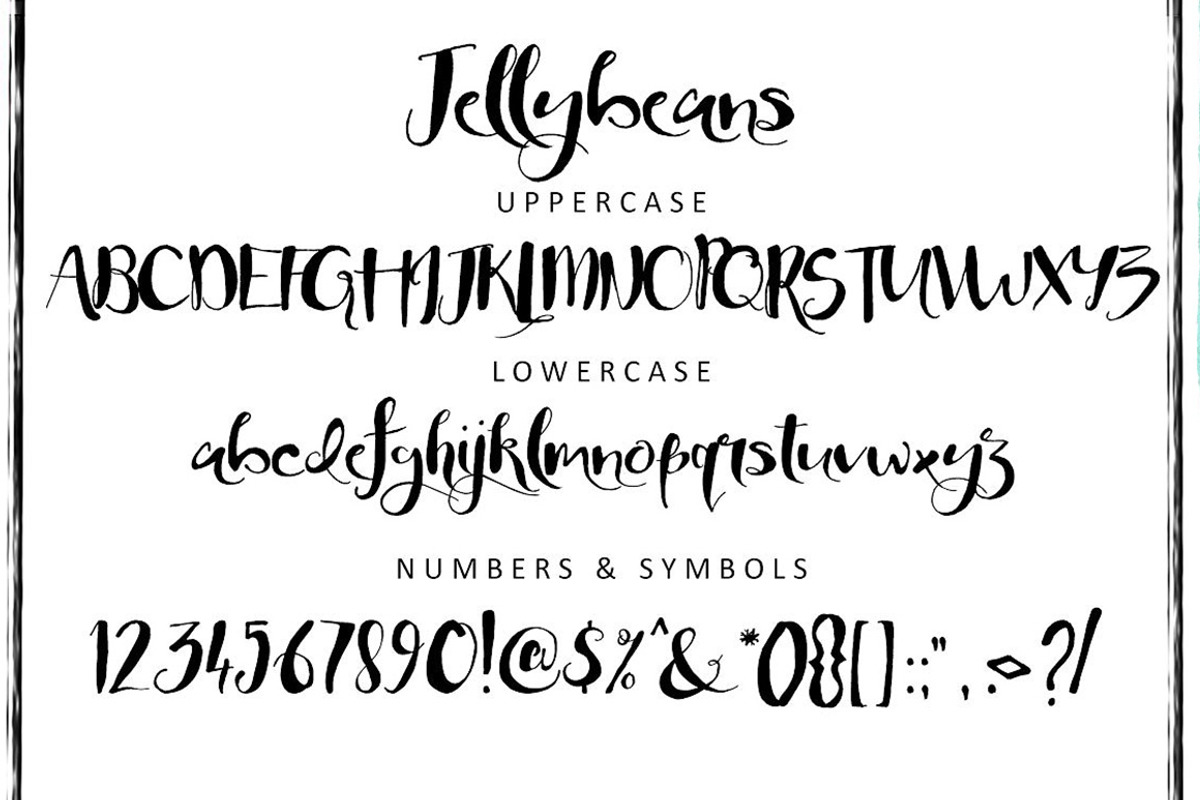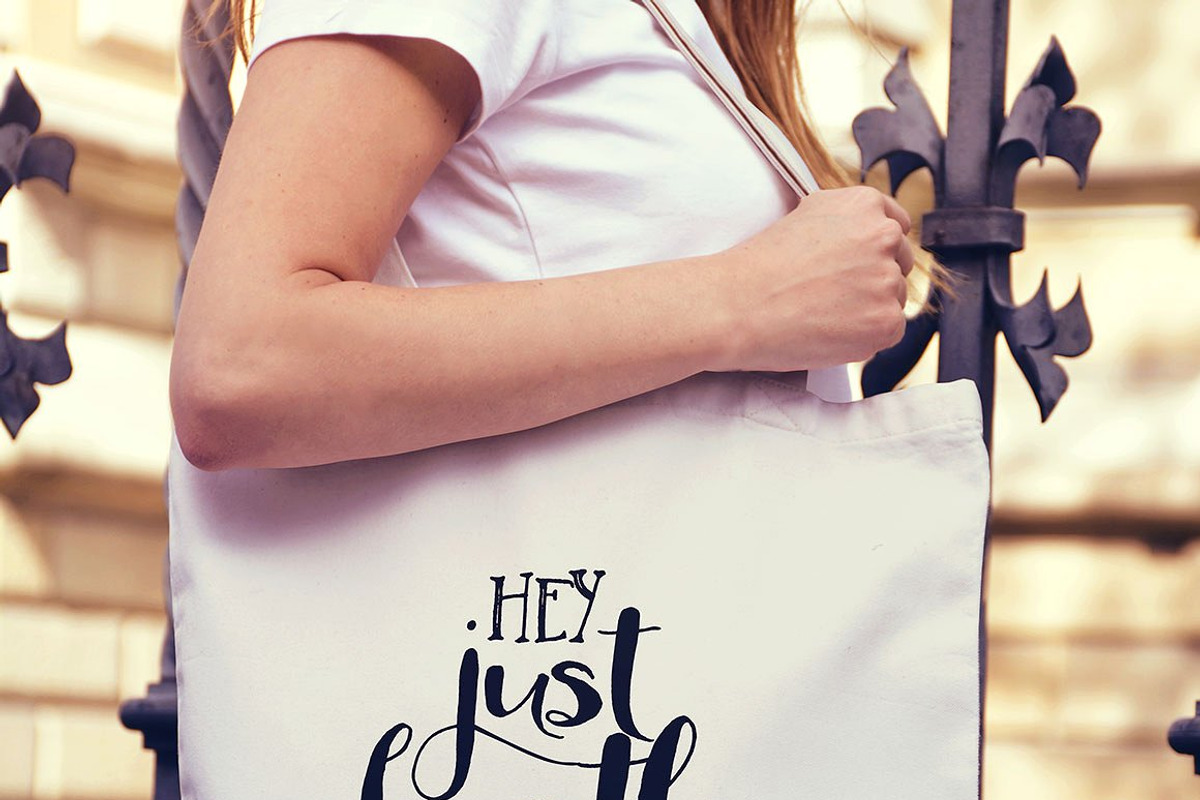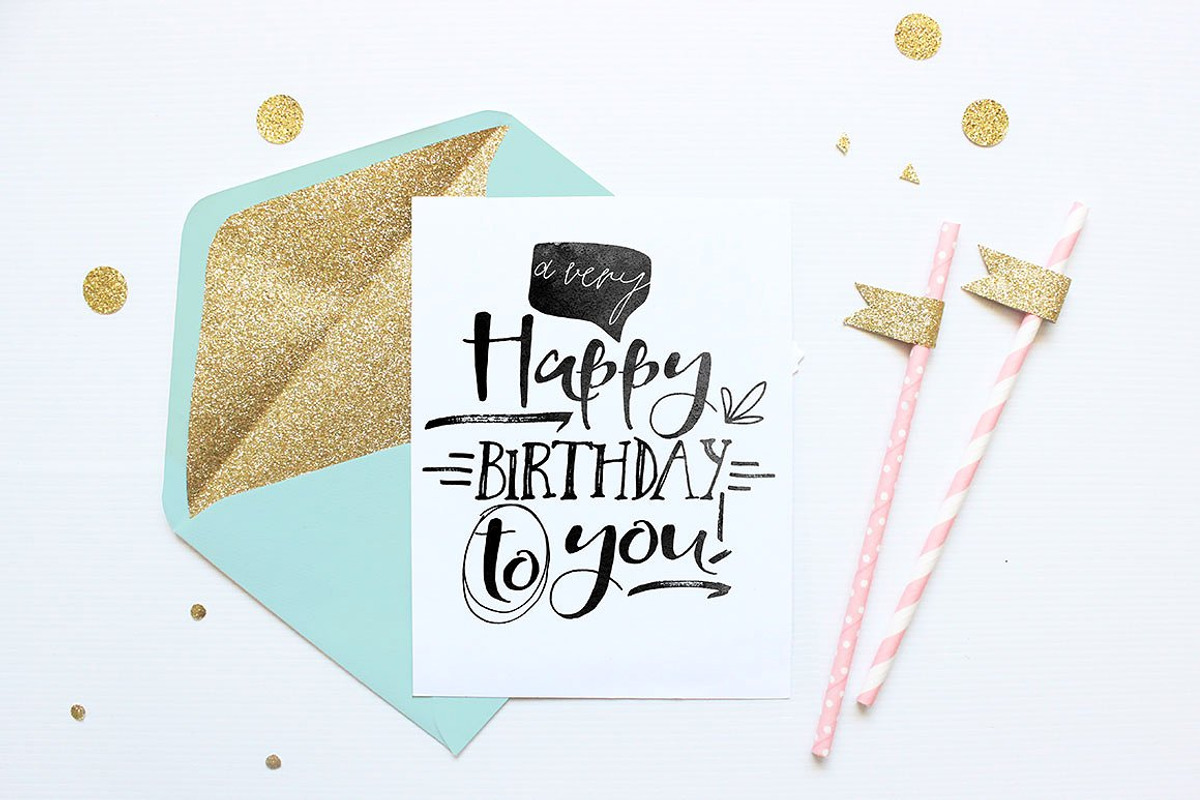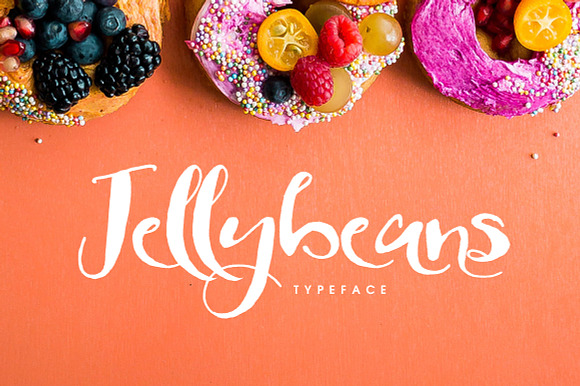
Jellybeans Font
This is Jellybeans. A bouncy bold semi script font. This font is part of the Big Bunch of Fonts Volume 1 here
Why Jellybeans Font is worth a look
Jellybeans Font by Creativeqube Design fits naturally into Branding, posters, packaging, typography.